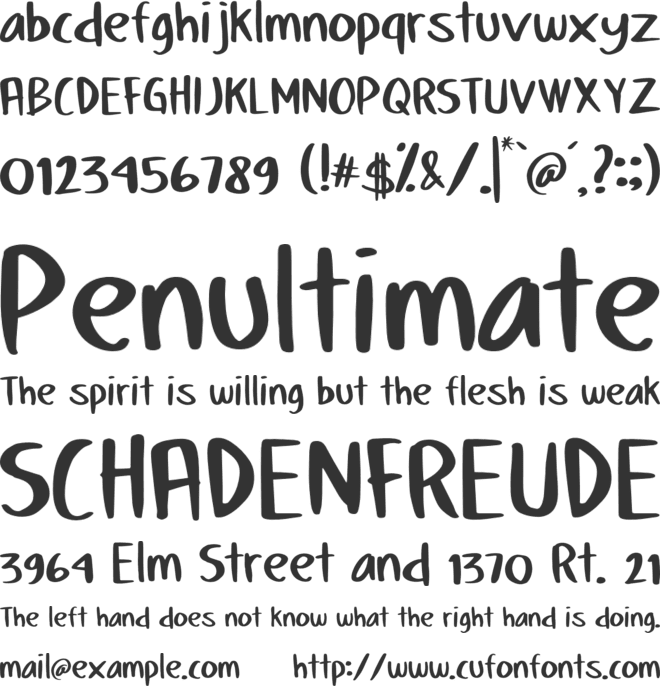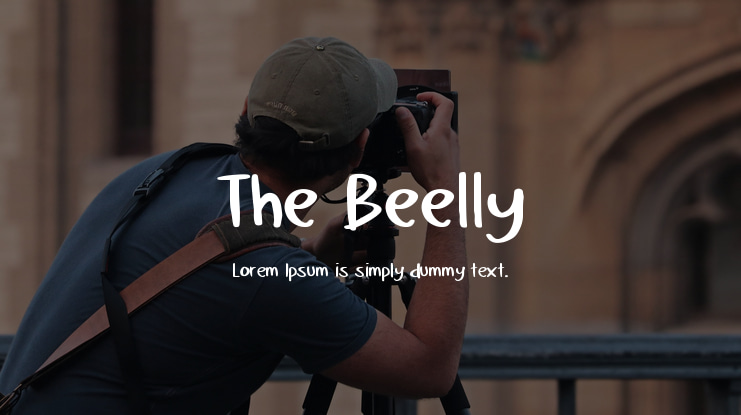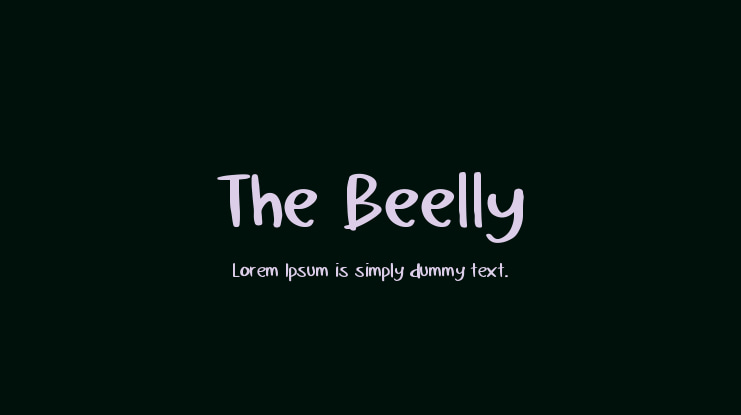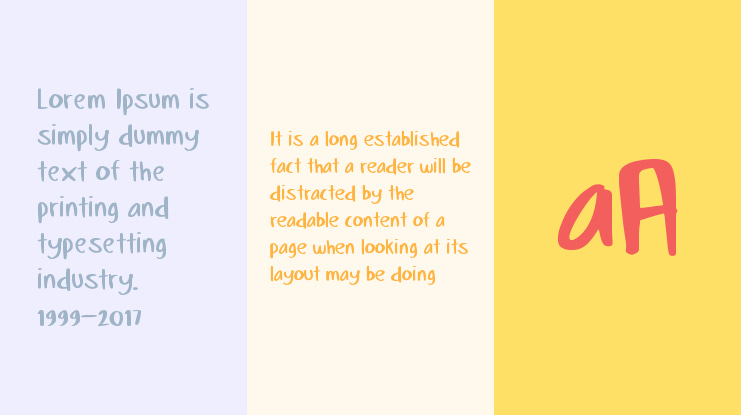
The Beelly Font
The Beely is a simple but classy, fun, manly but beautiful, chunky & playful handwritten font that is perfect for so many design projects. Such as advertising, branding, packaging, name card, invitation design, quote, blog design and others. It includes ligatures and ready for your designs.